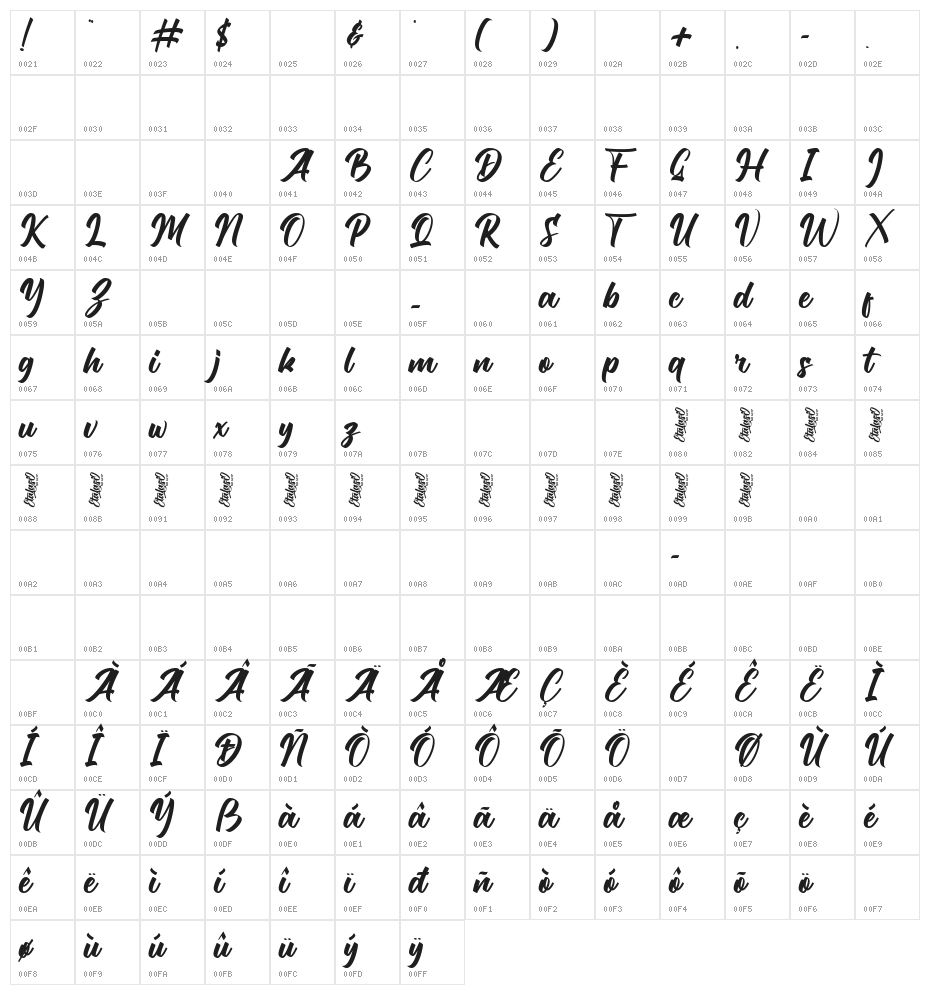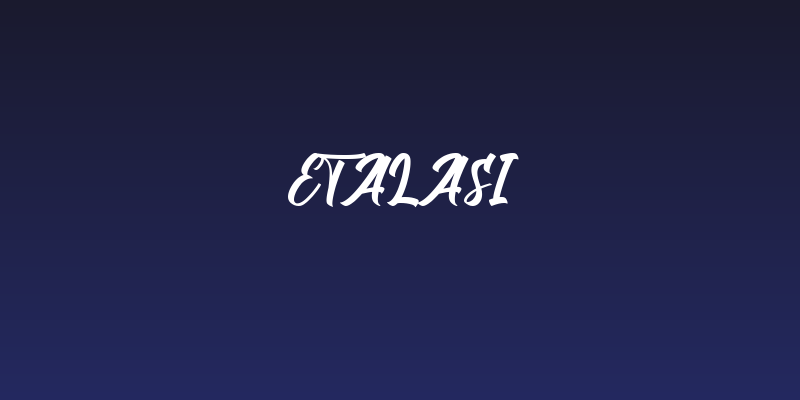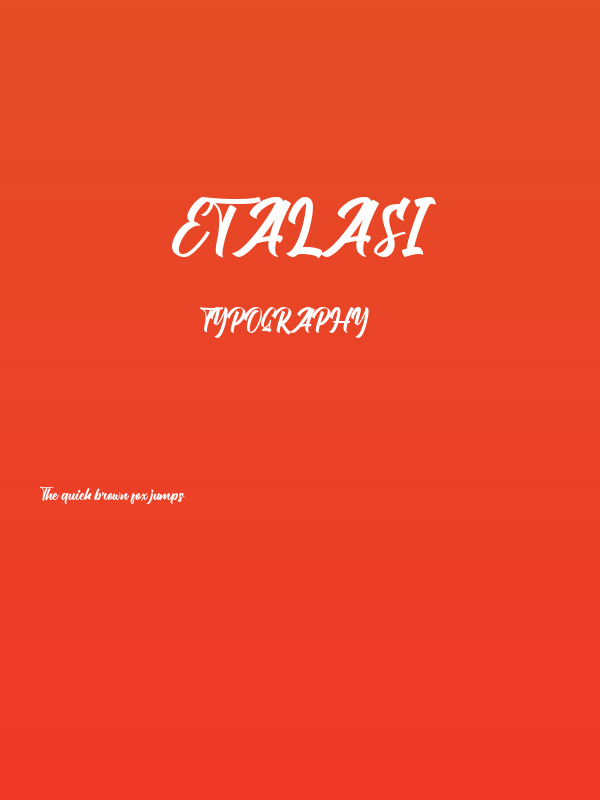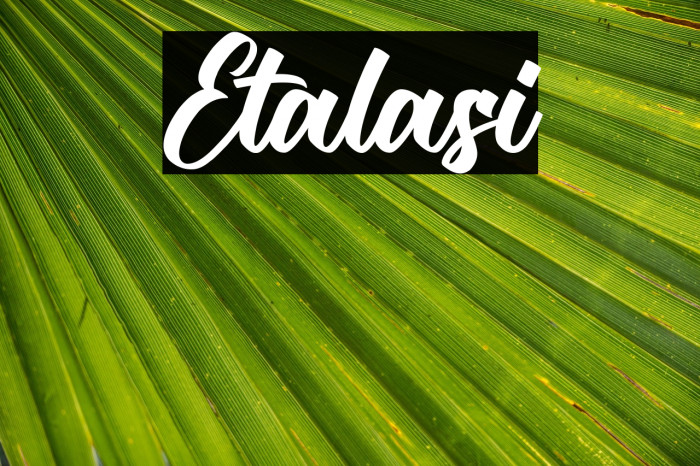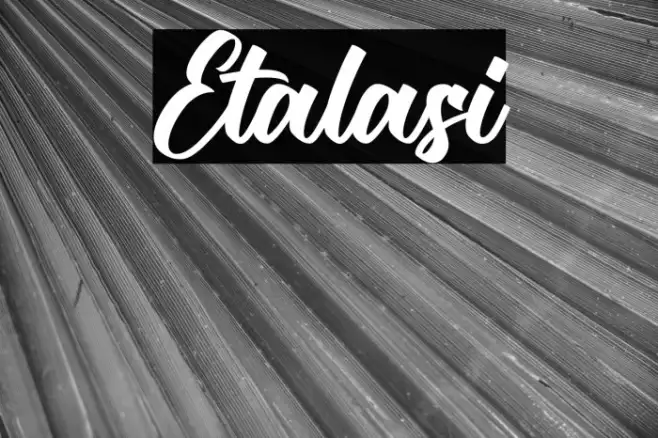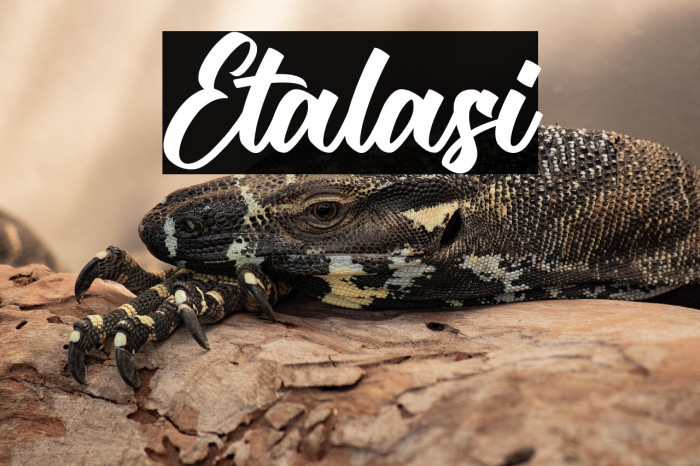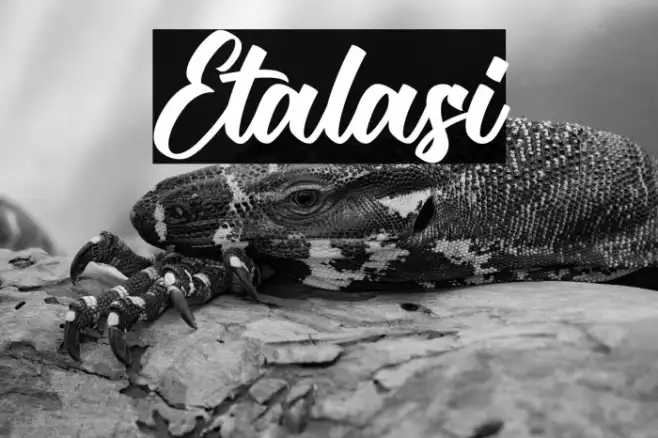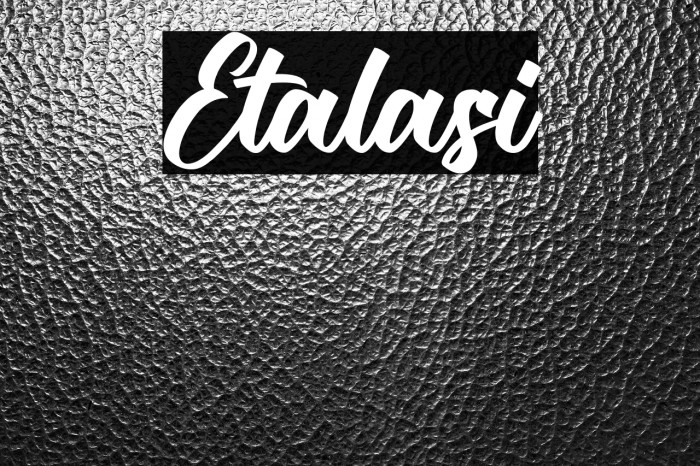
Etalasi Font
Etalasi Description
This font exudes a bold and dynamic presence with its brush script style, characterized by thick, sweeping strokes that convey a sense of movement and energy. The uppercase letters are particularly striking, with their dramatic curves and flourishes, while the lowercase letters maintain a consistent flow, enhancing readability. The font's design is both artistic and functional, making it suitable for a variety of creative applications. The special characters are well-integrated, maintaining the overall aesthetic and ensuring versatility in use.
| Proposed Projects | Ideal for branding, packaging design, event invitations, and social media graphics where a bold, artistic touch is desired. |